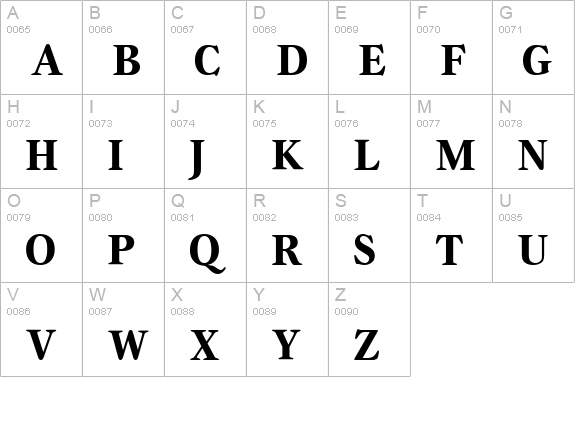
Gamma Bold Font Details
Gamma Bold is a strong, high-contrast variant in the Gamma typeface family \xE2\x80\x94 well suited to headlines, attention-grabbing titles, and strong calls-to-action.
Introducing Gamma Bold, a captivating and dynamic font that is sure to make a bold statement in any design project. With its sleek and modern design, Gamma Bold commands attention and exudes confidence. This versatile font is perfect for a wide range of applications, from eye-catching headlines to impactful logos and everything in between. The distinguished curves and sharp edges of Gamma Bold create a visually striking effect, ensuring that your message will be delivered with maximum impact. Whether you're designing a poster, website, or branding materials, this font will effortlessly elevate your project to new heights. But what sets Gamma Bold apart from other fonts? It's not just its impeccable design, but also the fact that it is freely available to download at FontsMarket.com. Yes, you read that right - Gamma Bold can be yours at absolutely no cost. We believe that great design should be accessible to all, and that's why we are proud to offer this remarkable font as a free download. So, why wait? Enhance your designs with the power of Gamma Bold today. Download it for free at FontsMarket.com and unleash your creativity like never before. Let Gamma Bold be the driving force behind your next design masterpiece.